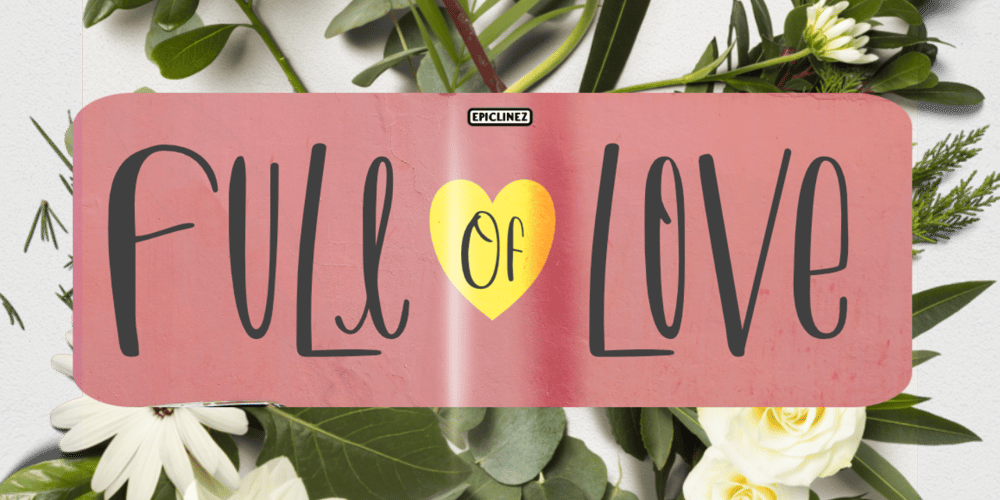
Full Of Love Font Family was designed by Aldy Sidik and published by Epiclinez. Full Of Love contains 1 styles and family package options. Full of love is a simple, fun, and relaxed handwritten font. Whether you’re using it for crafting, digital designing, presentations, or greeting card making, it’s perfect!